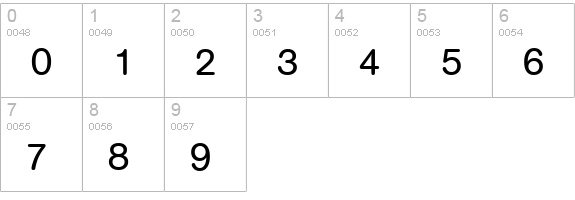
Arezzo-Rounded-Regular Font Details
Arezzo-Rounded-Regular is the standard, neutral variant in the Arezzo typeface family \xE2\x80\x94 well suited to general body text, paragraphs, and standard typographic work.
Arezzo-Rounded-Regular is a versatile and modern font that exudes a sense of elegance and simplicity. With its rounded edges and clean lines, this font is perfect for a wide range of design projects, from branding to web design. The smooth curves of Arezzo-Rounded-Regular add a touch of friendliness and warmth to any text, making it a great choice for both headers and body copy. Best of all, Arezzo-Rounded-Regular is available for free download at FontsMarket.com. This means you can easily access this beautiful font and incorporate it into your projects without any cost. Don't miss out on this opportunity to enhance your designs with the timeless appeal of Arezzo-Rounded-Regular. Download it today and unleash your creativity!